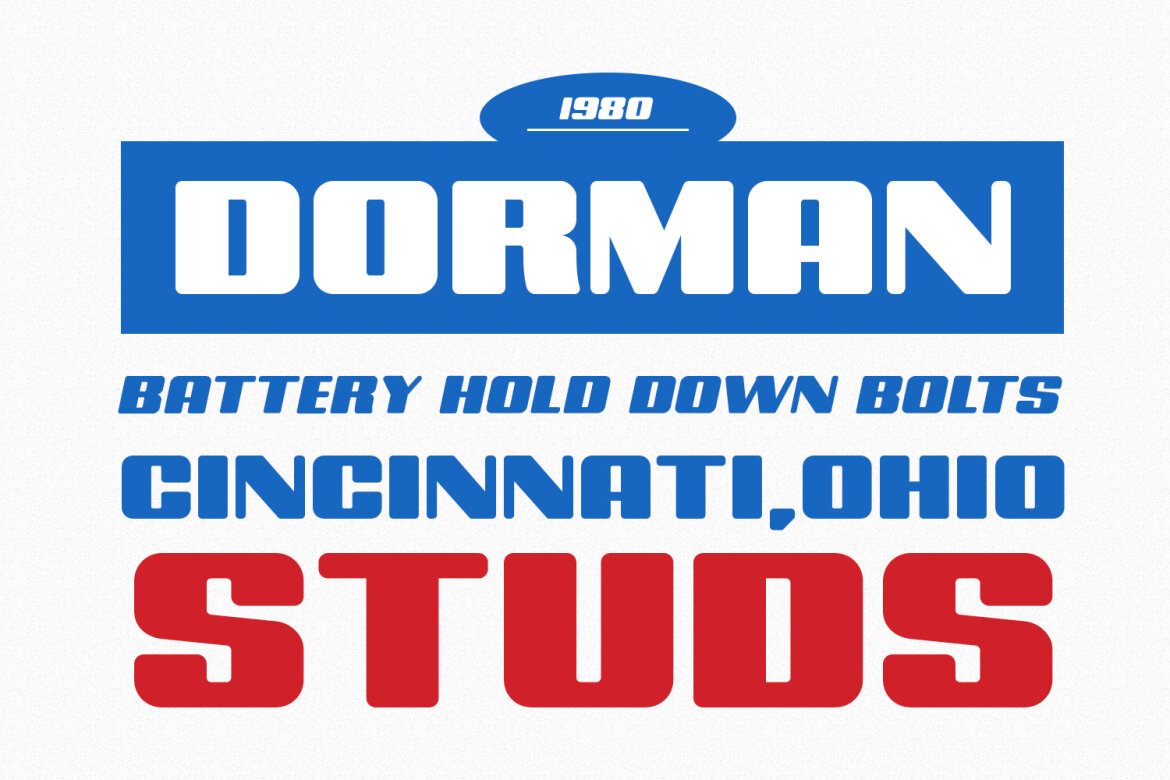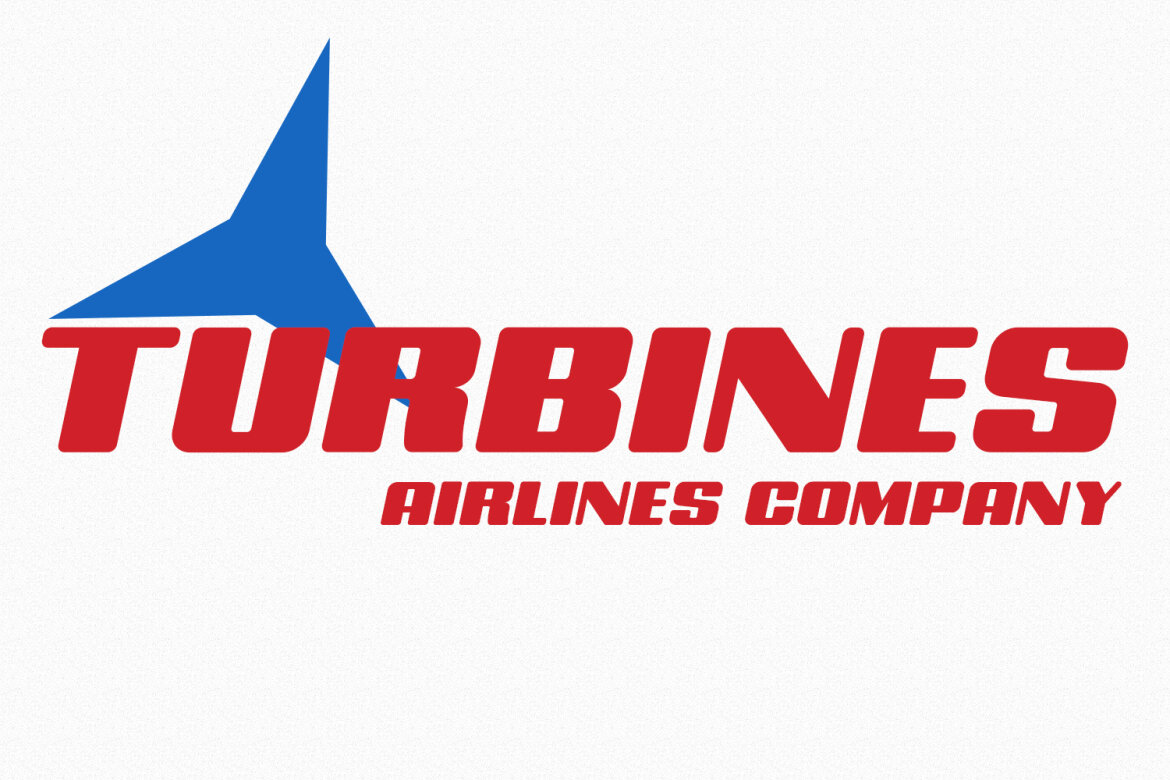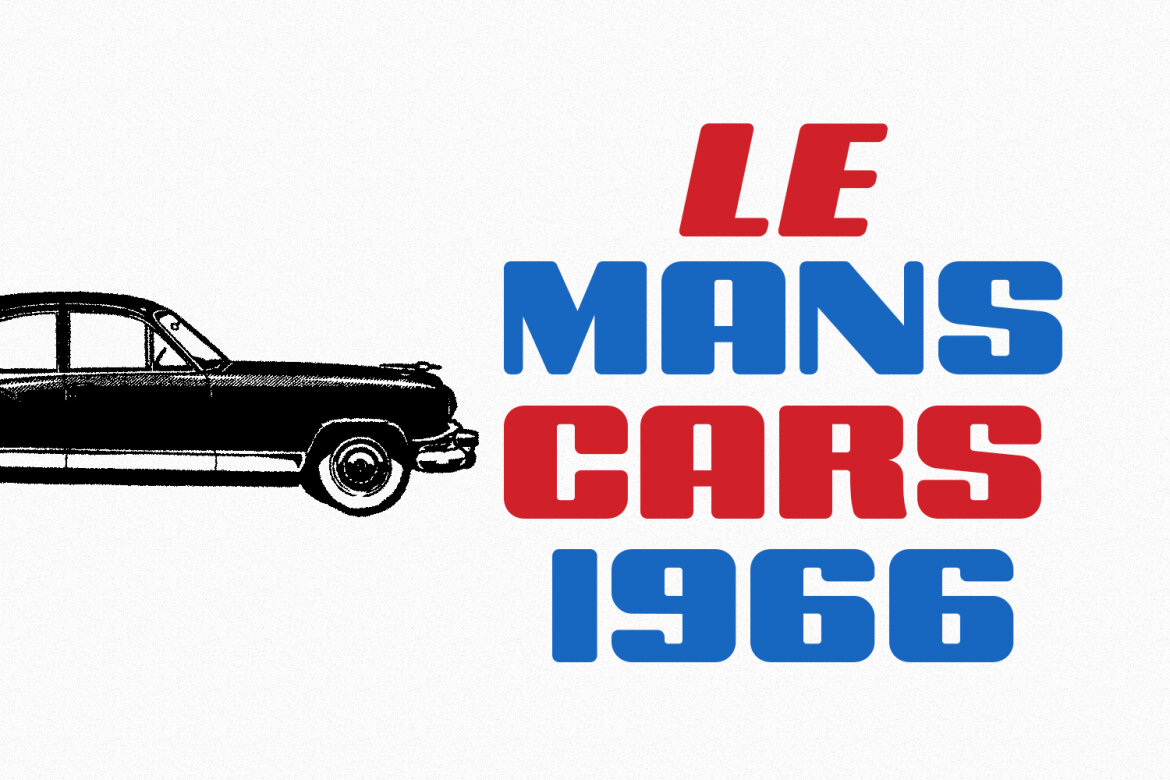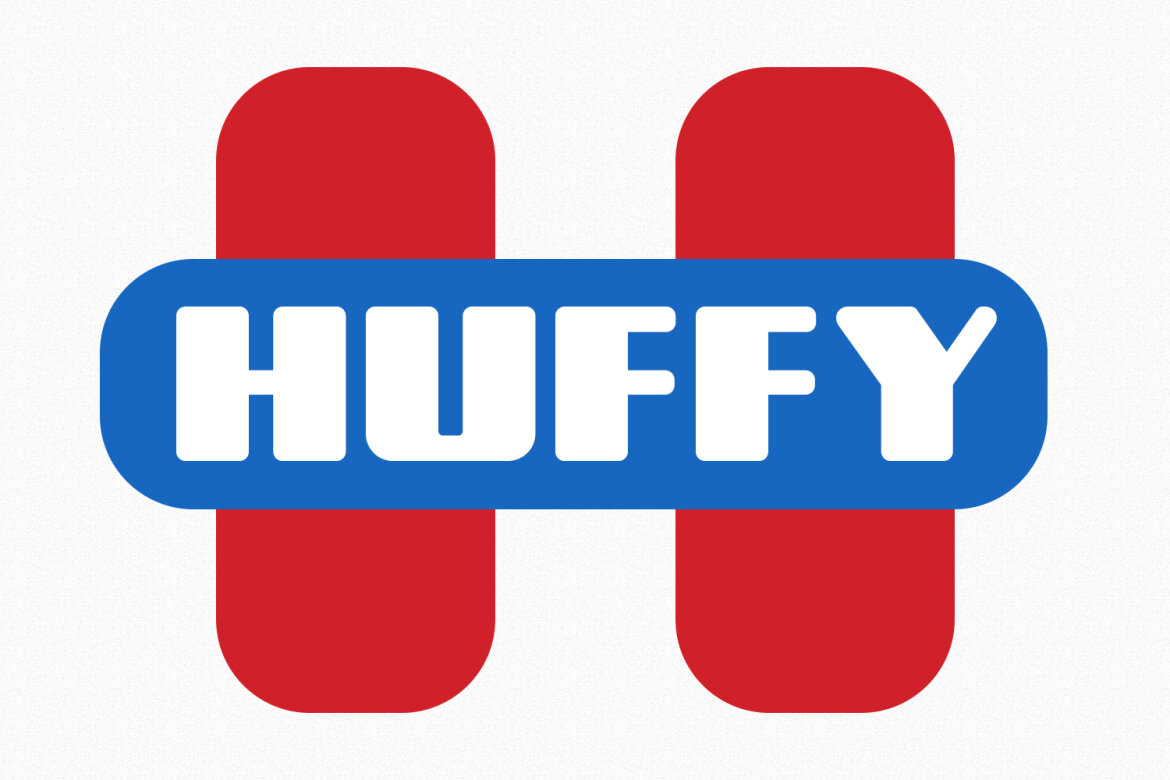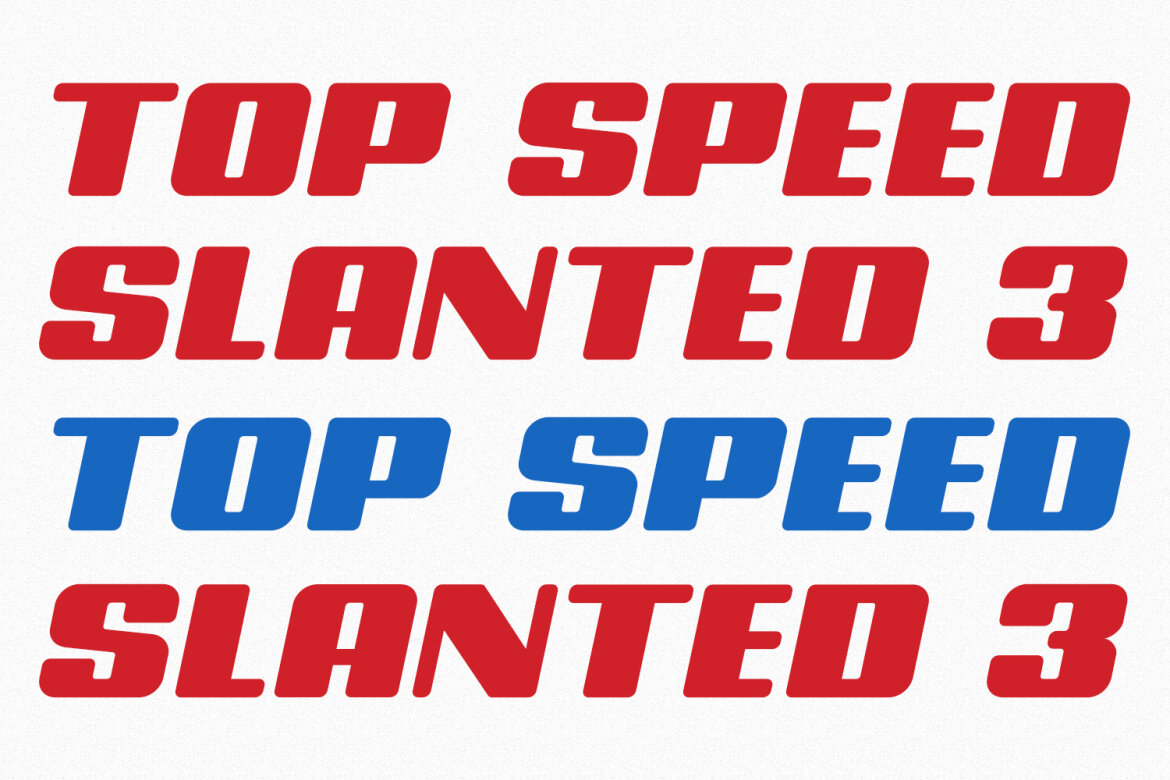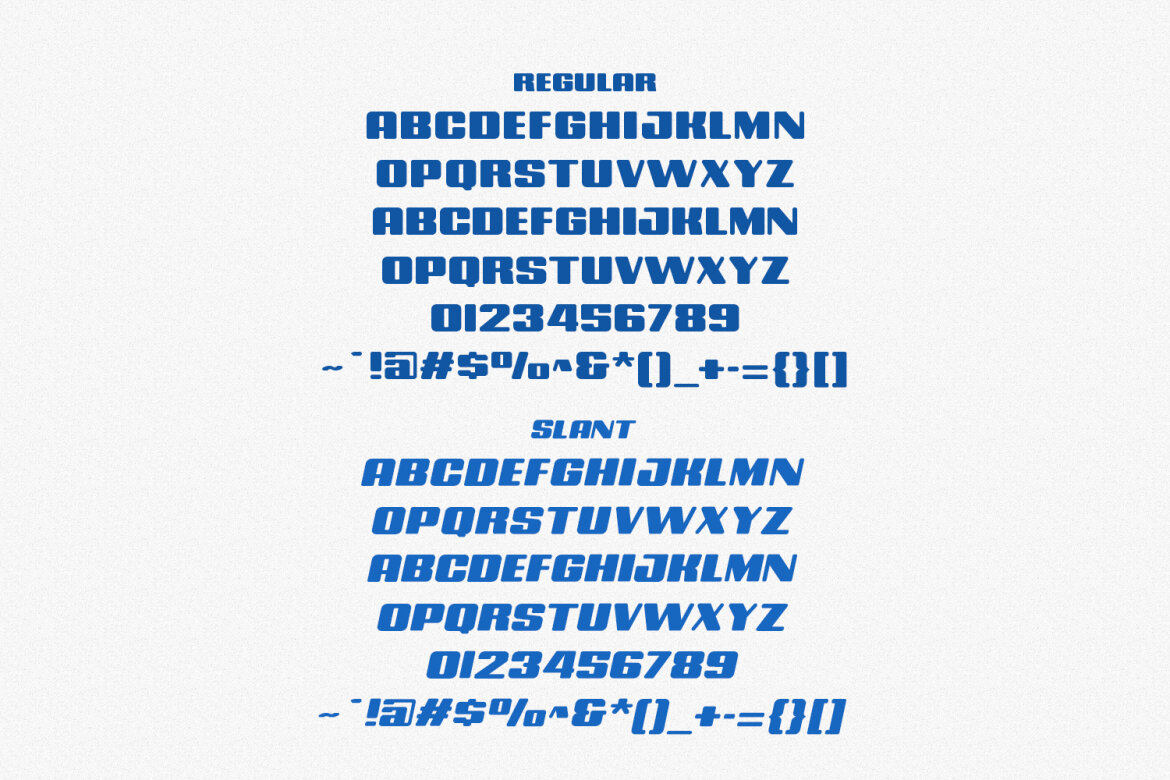
Karbin Sans Serif FREE Font
Karbin is an All Caps sans Display font with slant style. Round Heavy stroke, fun character with a bit of ligatures and alternates. To give you an extra creative work. Karbin font support multilingual more than 100+ language. This font is good for logo design, Social media, Movie Titles, Books Titles, a short text even a long text letter and good for your secondary text font with script or serif. Make a stunning work with Karbin font.